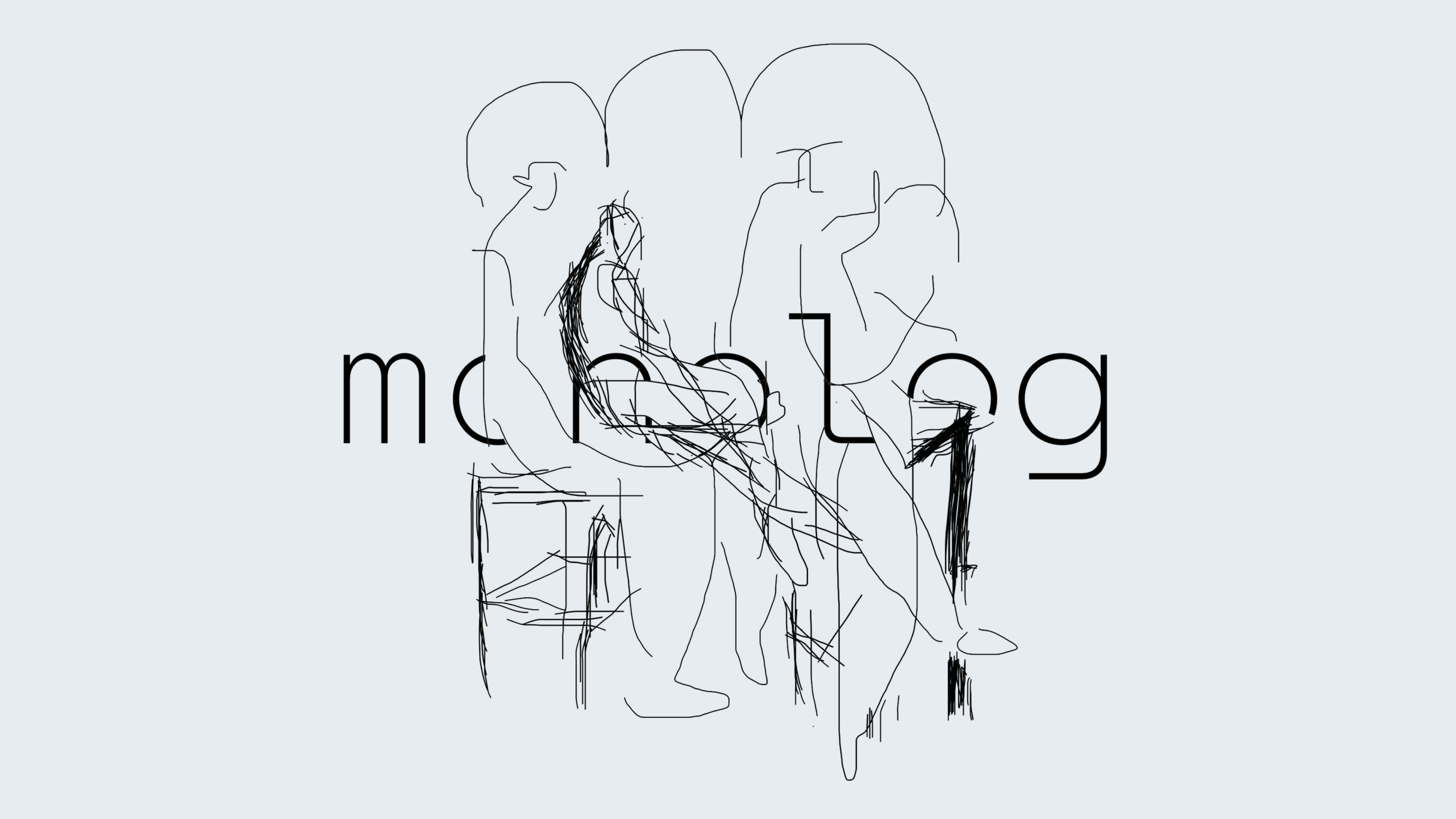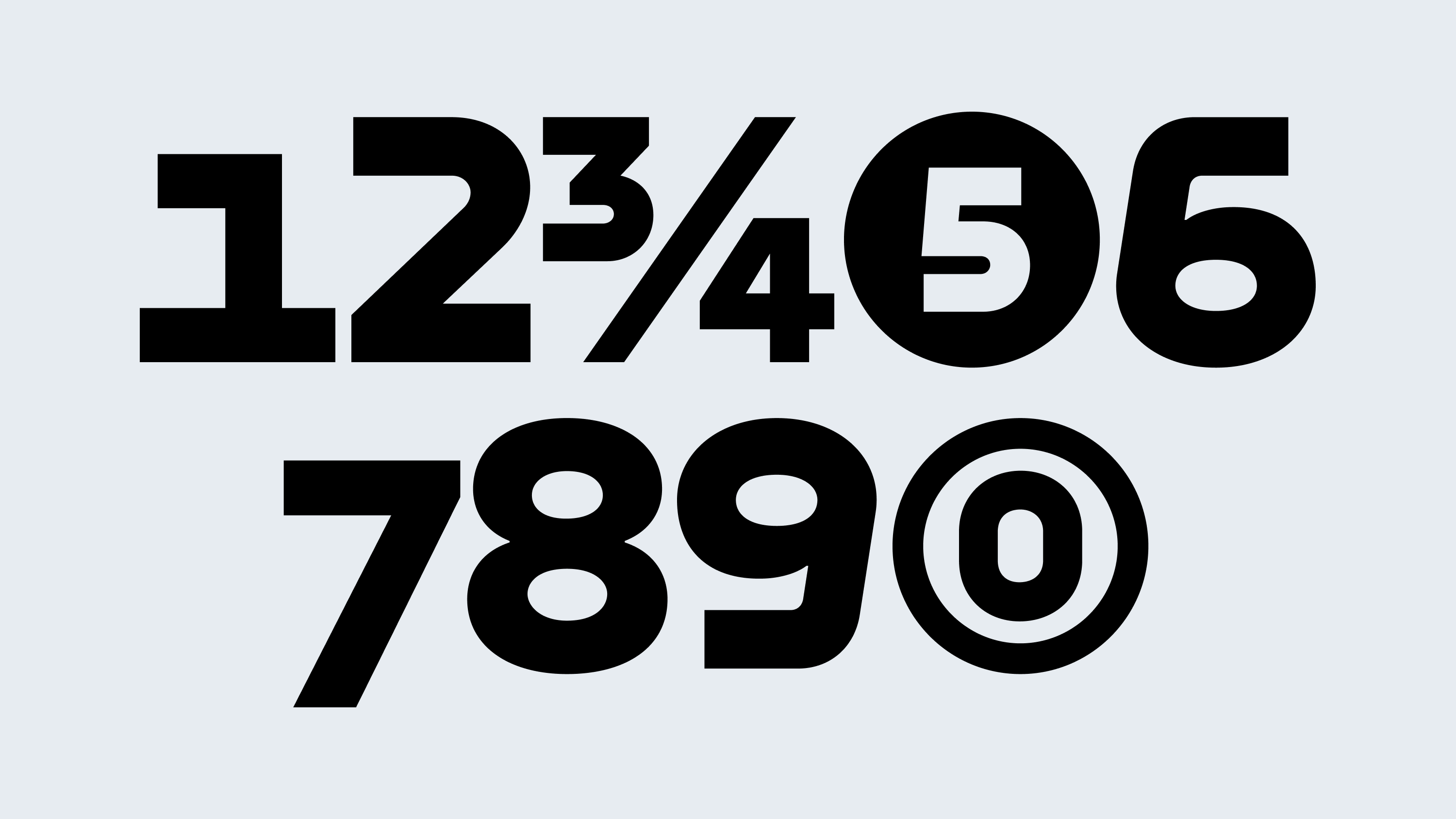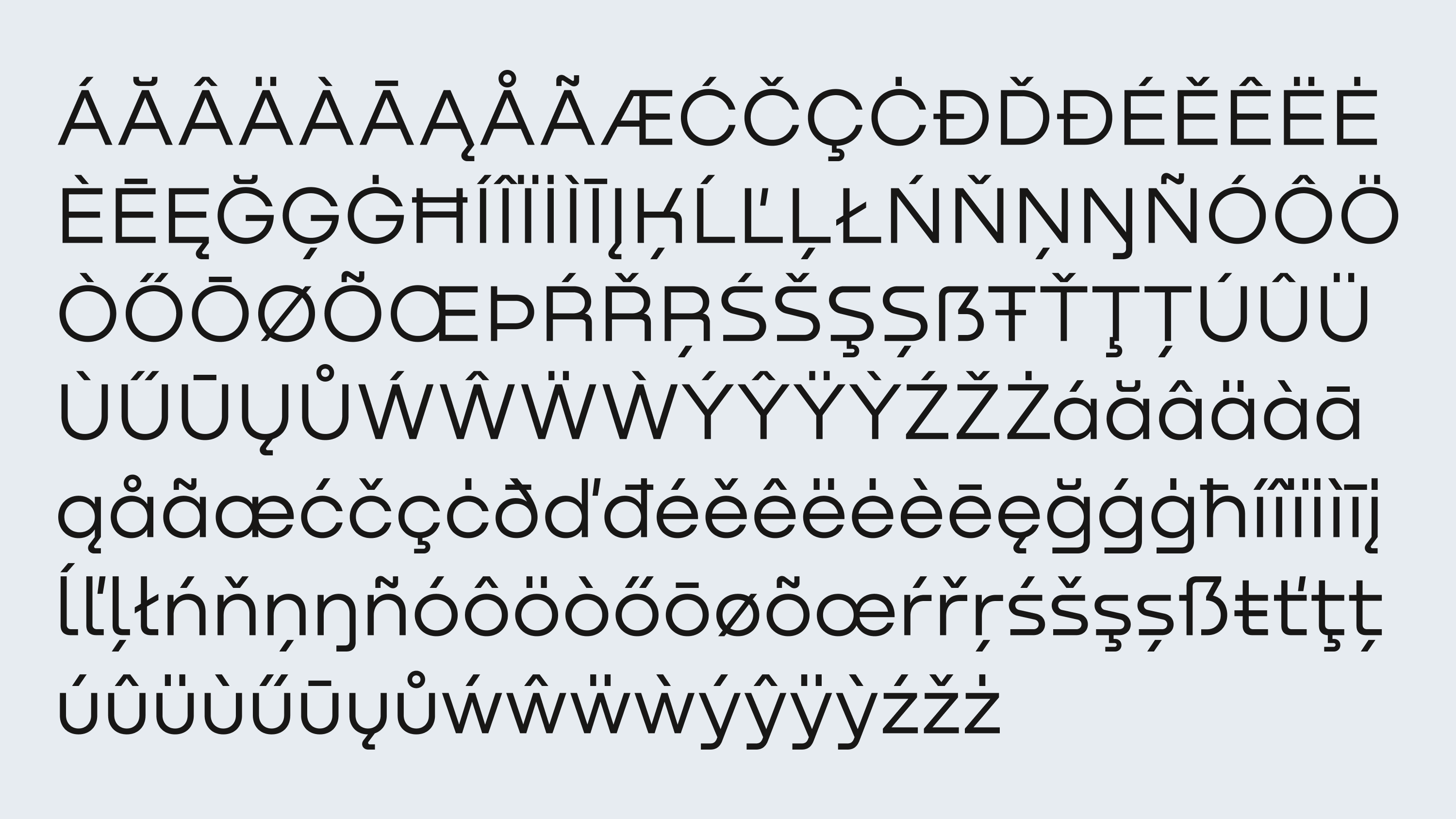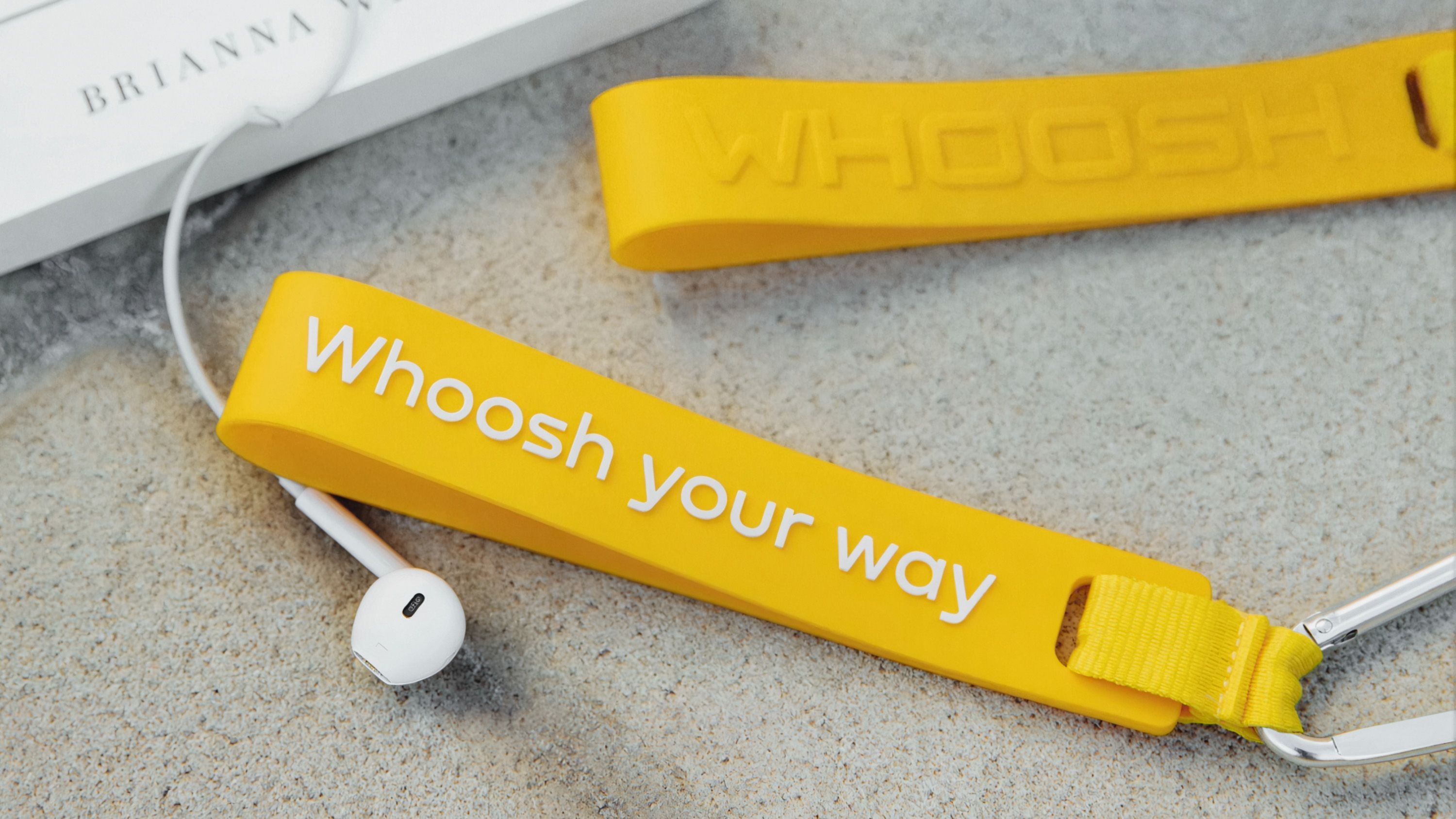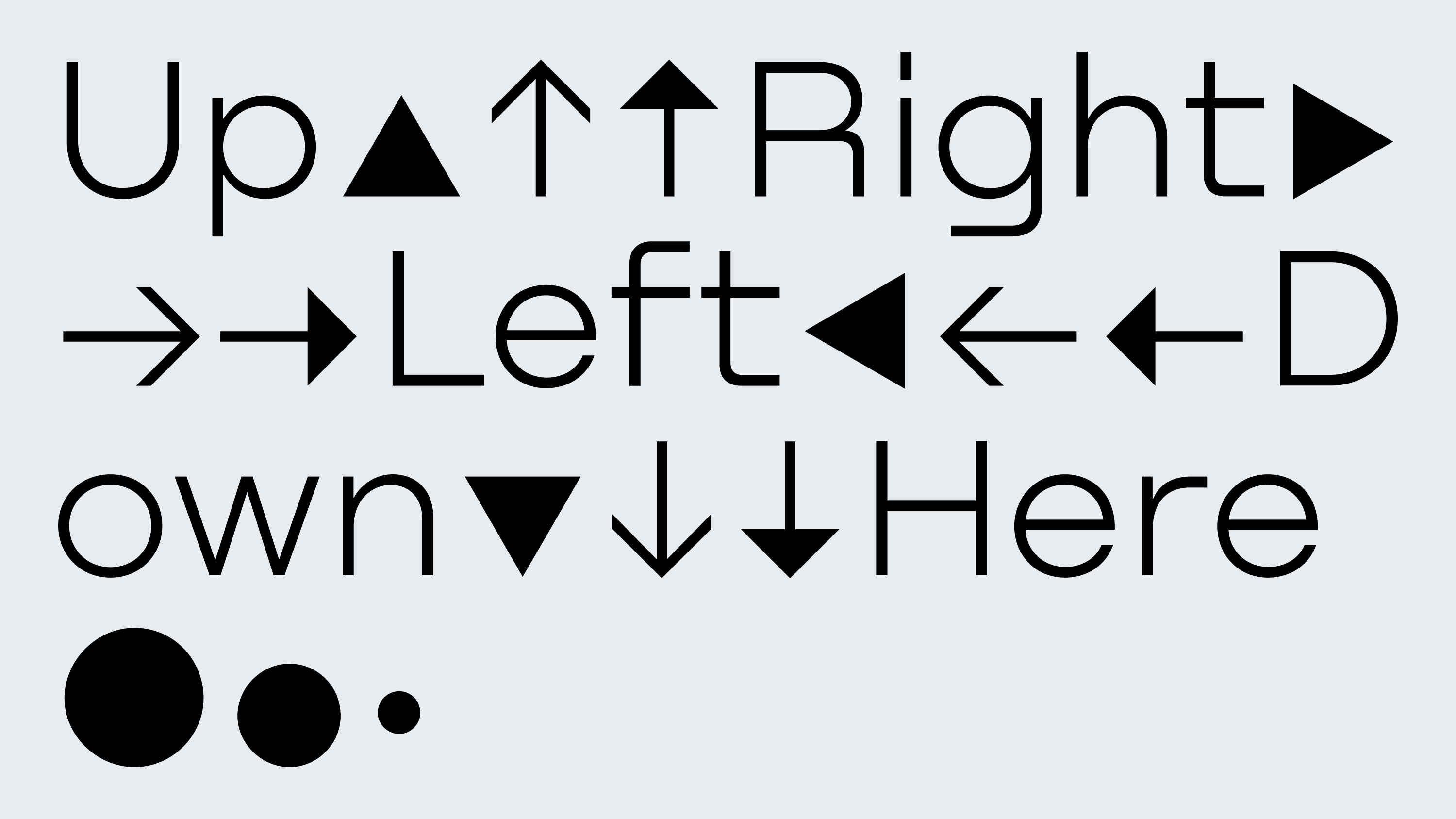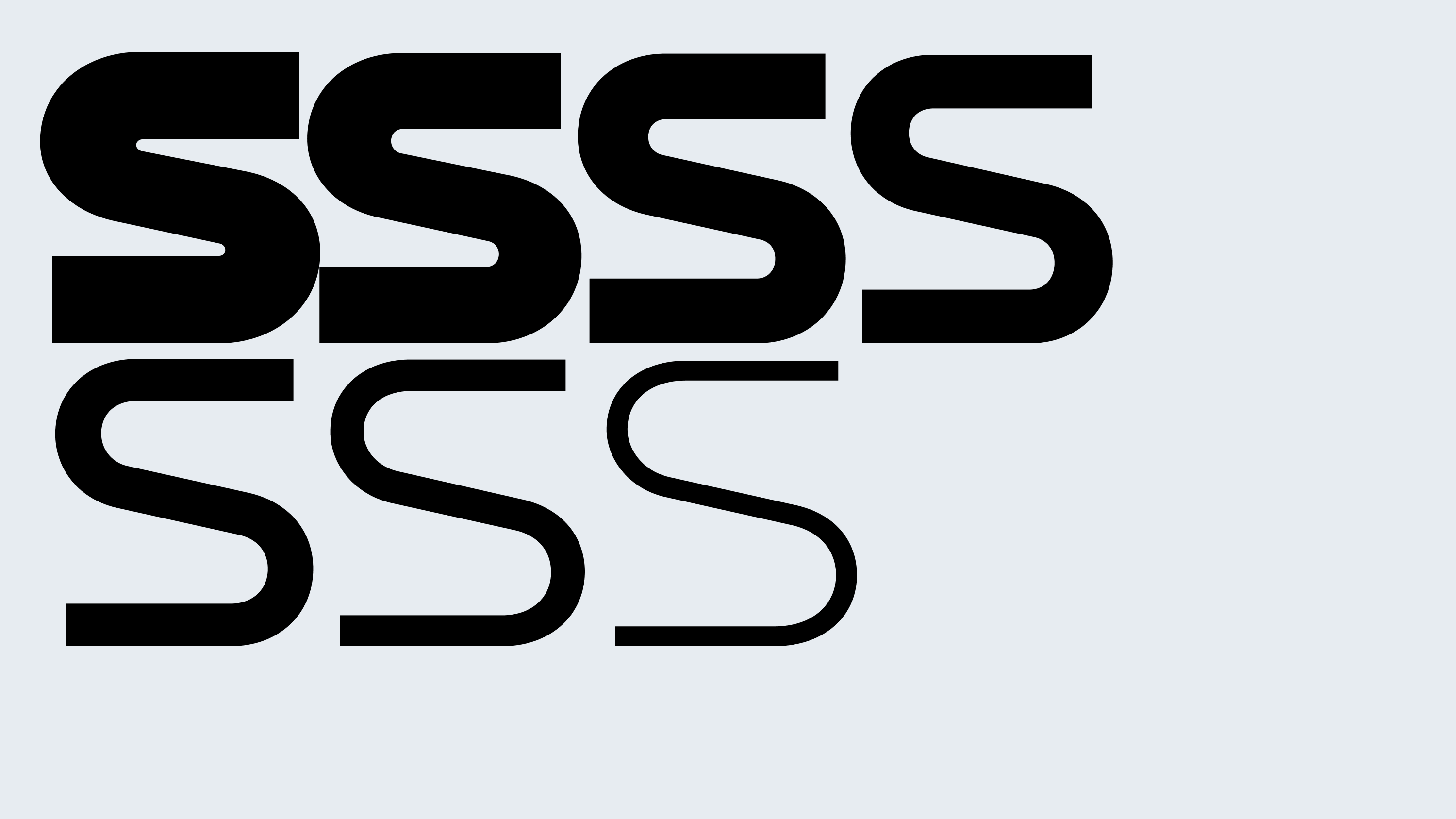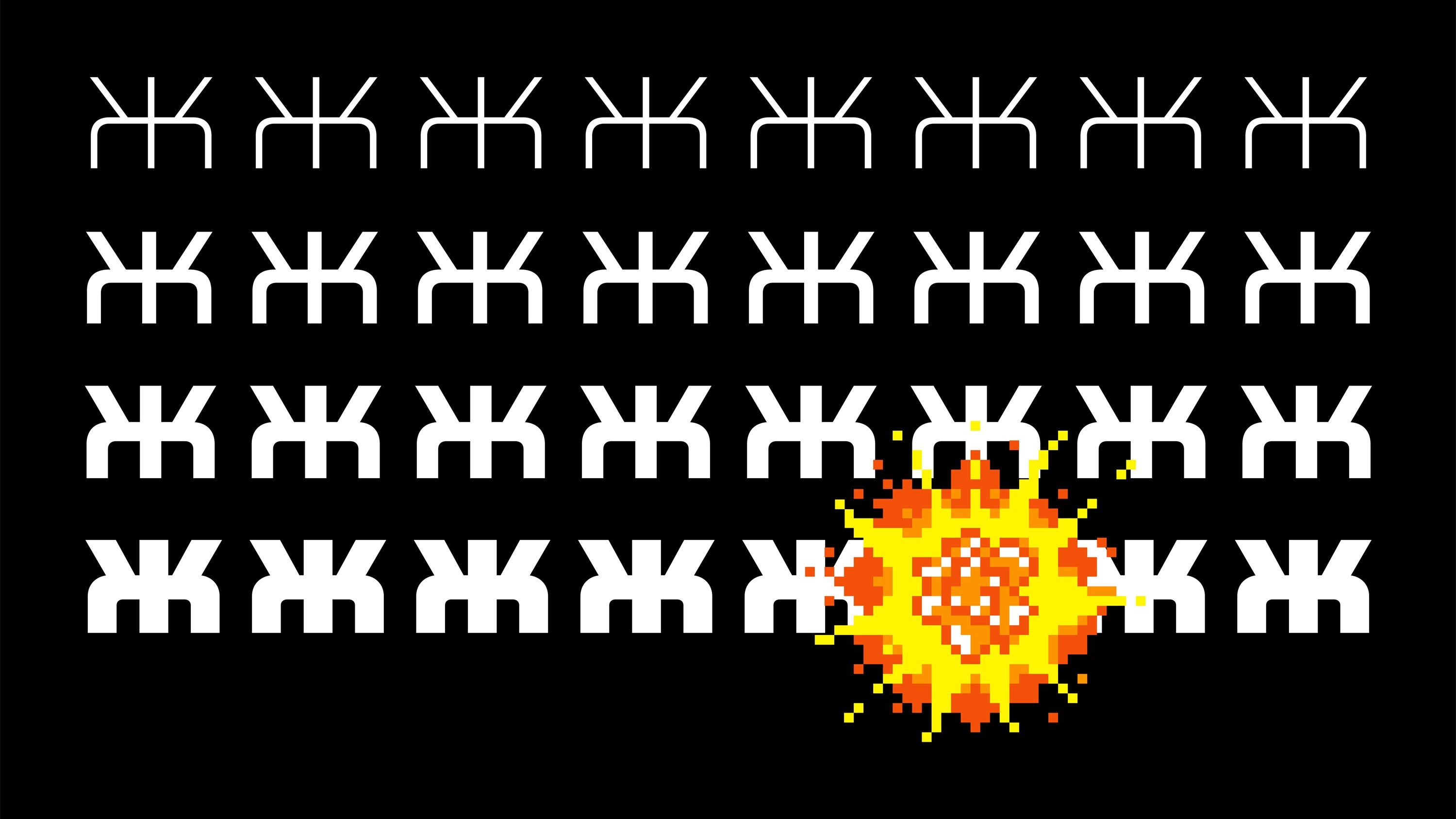
Nekst
Latin, Cyrillic
Stylistic alternates
Case-sensitive forms
Oldstyle/Lining figures
Denis Serebryakov
Nekst is a geometric grotesque — simple and austere, but only at first glance. Beneath its apparent rigidity lies a quiet eccentricity. The typeface grew out of an idea to merge the aesthetics of early grotesques with the geometry of contemporary sans-serifs. In its forms, one can hear echoes of industrial typography, constructivist logic, and a touch of futuristic accent — all adding depth to its modern Nordic silhouette. Nekst is an authorial experiment: to combine what seems incompatible and preserve the sharpness.
With seven weights — from Thin to Black, Nekst adapts to a wide range of uses, from restrained to display. It feels equally at home in the identity of an industrial giant, on the interface of a tech startup, or within the fast-paced world of sports. Its relevance is not tied to context — Nekst is beyond time.
It blends contemporaneity and physical presence, determination and directness, structural force and typographic tension. This is a typeface where form doesn’t follow trend — it becomes a tool for visual thinking.